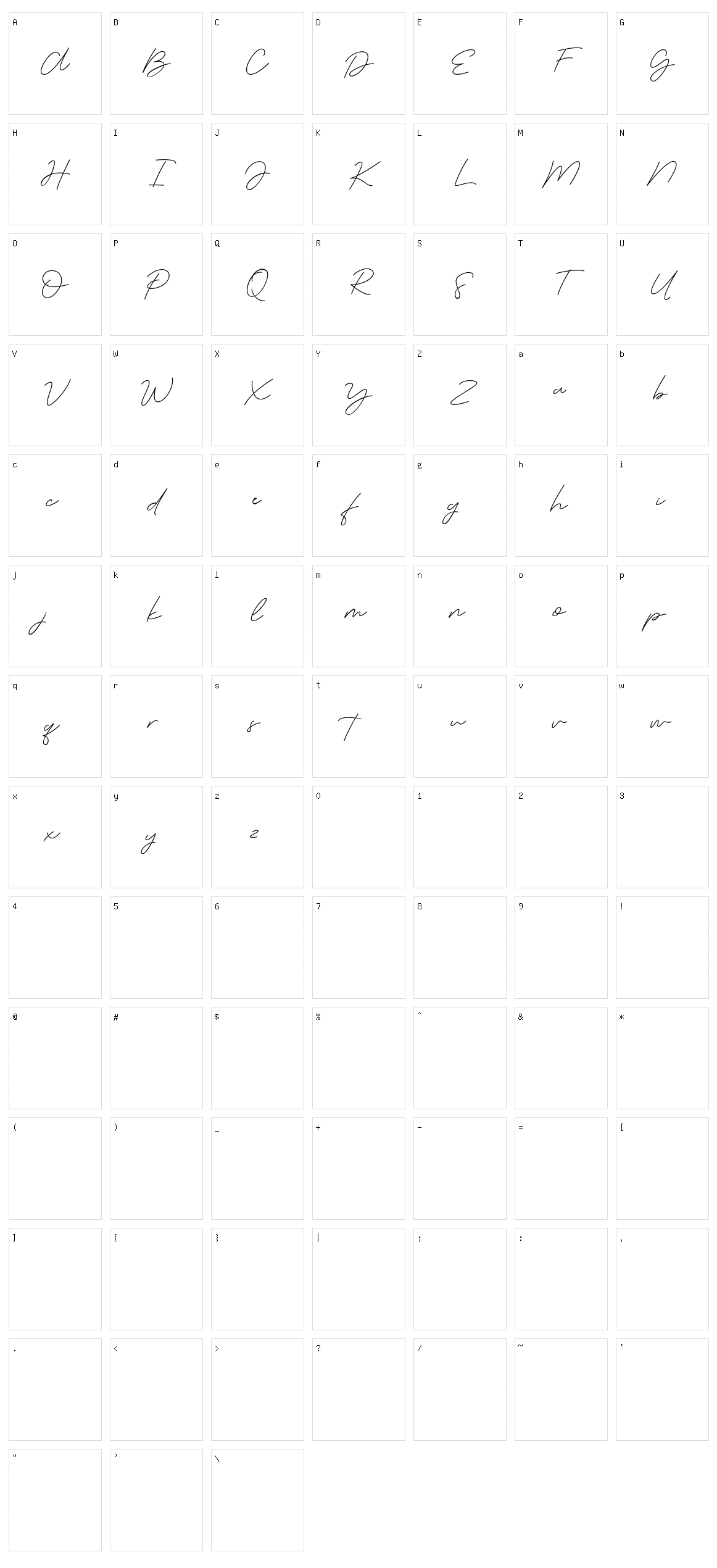
The free font Serenity is carefully designed by Dharmas Studio, showcasing a thoughtful balance of creativity and usability and falls under the Script font style. When you download the ZIP file, it contains only 12.35 KB of font files, making it lightweight and quick to download. Please review the license details below to understand permitted usage and distribution rights. If license information is not available, we recommend using this font for personal projects only or contacting the author directly for commercial usage permissions.